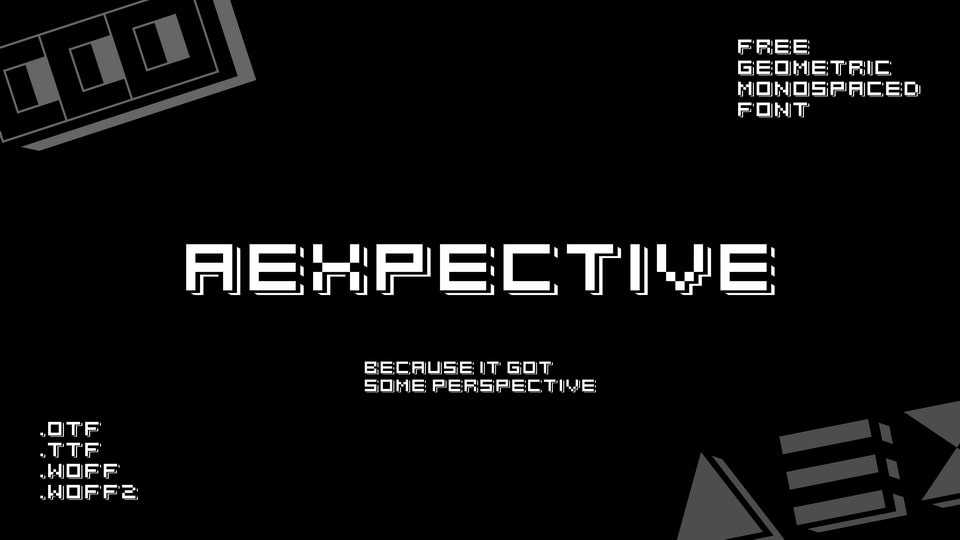
Download Aexpective font, a geometric monospaced typeface with some perspective. Its heavy, strong letterforms give Aexpective font impact and it is best suited to display and headline use.